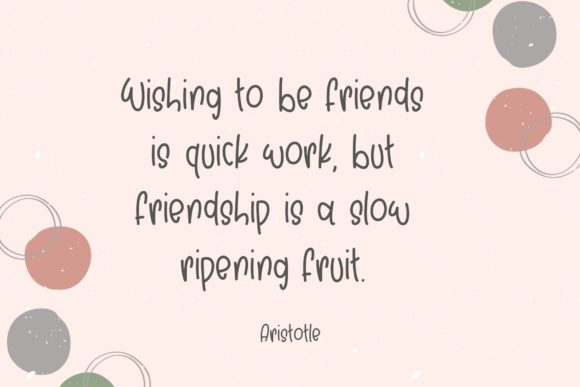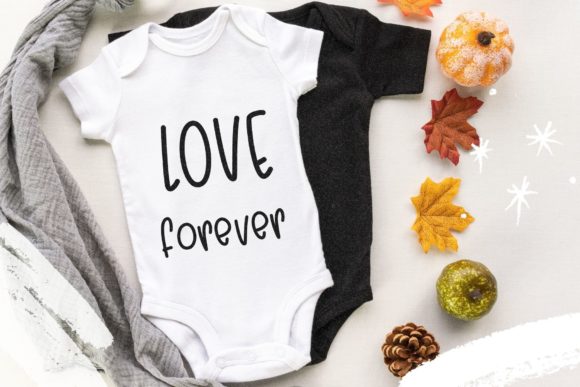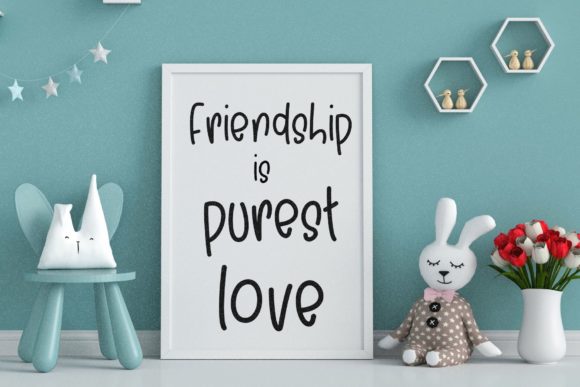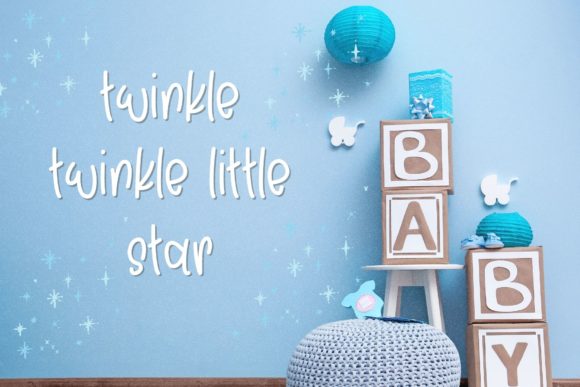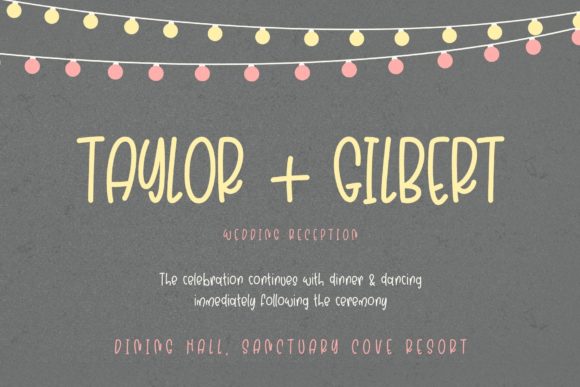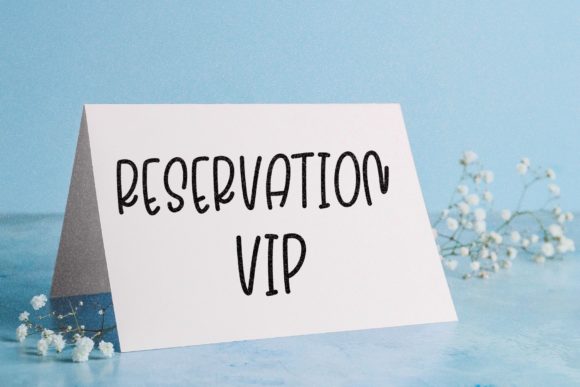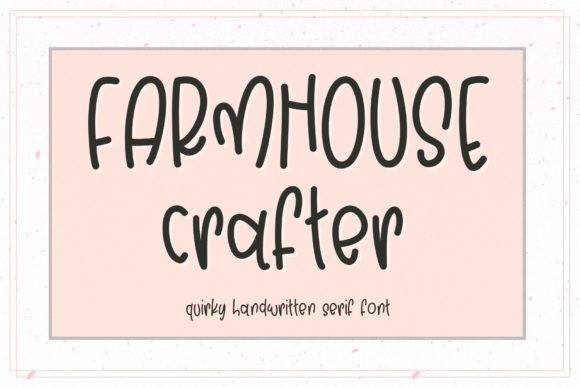
Introducing Farmhouse Crafter Font: Add a Touch of Whimsy to Your Crafts
Are you a designer or crafter looking for a unique and playful font to elevate your projects? Look no further than Farmhouse Crafter Font! This adorable handwritten font is perfect for adding a touch of whimsy and personality to your crafts, signs, and DIY projects. In this article, we’ll dive into the details of Farmhouse Crafter Font and explore how it can brighten up your creative endeavors.
What is Farmhouse Crafter Font?
Farmhouse Crafter Font is a cute and quirky handwritten font that’s a bit sloppy and asymmetrical. Its imperfections are what make it so charming and endearing. This font is perfect for crafty projects, DIY signs, and other creative endeavors where you want to add a personal touch. With Farmhouse Crafter Font, you can add a dash of personality to your work and make it stand out from the crowd.
Key Features of Farmhouse Crafter Font
- Handwritten style: Farmhouse Crafter Font has a genuine handwritten look that’s perfect for adding a personal touch to your projects.
- Quirky and playful: This font has a playful, carefree vibe that’s sure to bring a smile to your face.
- Asymmetrical and sloppy: The imperfections in Farmhouse Crafter Font are what make it so charming and unique.
- Easy to read: Despite its quirky nature, Farmhouse Crafter Font is still easy to read, making it perfect for use in a variety of projects.
Uses for Farmhouse Crafter Font
Farmhouse Crafter Font is versatile and can be used in a variety of projects, including:
- DIY signs: Add a personal touch to your DIY signs with Farmhouse Crafter Font.
- Crafting projects: Use Farmhouse Crafter Font to add a playful touch to your crafting projects, such as scrapbooking, card making, and more.
- Invitations and party decor: Farmhouse Crafter Font is perfect for creating whimsical invitations and party decor.
- Social media graphics: Add a touch of personality to your social media graphics with Farmhouse Crafter Font.
Tips for Using Farmhouse Crafter Font
Here are a few tips for getting the most out of Farmhouse Crafter Font:
- Use it with other fonts: Farmhouse Crafter Font pairs well with other fonts, so don’t be afraid to experiment with different combinations.
- Experiment with colors: Farmhouse Crafter Font looks great in a variety of colors, so try it out in different hues to see what works best for your project.
- Don’t be afraid to get creative: Farmhouse Crafter Font is all about embracing imperfections, so don’t be afraid to get creative and try new things.
Farmhouse Crafter Font is a unique and playful font that’s perfect for designers and crafters looking to add a touch of whimsy to their projects. With its handwritten style, quirky vibe, and asymmetrical imperfections, Farmhouse Crafter Font is sure to brighten up your crafts and make them stand out from the crowd. So why not give it a try and see what kind of creative magic you can create?
Whether you’re a seasoned designer or a crafty DIY enthusiast, Farmhouse Crafter Font is a great addition to your font collection. So go ahead, get creative, and have fun with Farmhouse Crafter Font!